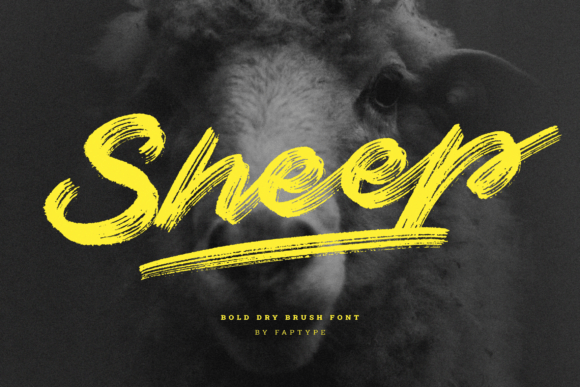
Welcome to the world of Sheep Font, a groundbreaking script typeface that will revolutionize your creative endeavors. Picture this: a font that captures the essence of handwritten artistry, with each letter flowing like a gentle breeze. Inspired by the timeless beauty of dry brush strokes, Sheep Font is an instant classic, ready to add a touch of elegance and sophistication to your projects.
As you explore the depths of Sheep Font, you'll discover a world of possibilities. With its PUA encoding, you'll have effortless access to a treasure trove of glyphs and swashes, allowing you to unleash your creativity and create designs that truly stand out. Let your words dance across the page, each letter carrying the weight of your message with grace and flair.
Sheep Font isn't just another font; it's an experience. It's a journey into the realm of artistic expression, where your imagination roams free and your projects come to life with stunning beauty. Whether you're a seasoned designer seeking inspiration or a novice venturing into the world of typography, Sheep Font is your trusted companion, guiding you to achieve greatness.
Immerse yourself in the captivating charm of Sheep Font. Let its intricate details and sweeping curves take you on a visual adventure. From enchanting logos that captivate audiences to heartfelt invitations that touch souls, Sheep Font is the ultimate choice for creating designs that resonate with your audience.
Don't settle for ordinary fonts that blend into the background. Choose Sheep Font, and let your designs speak volumes. Whether you're crafting a captivating social media post, designing a stunning website, or creating heartfelt branding materials, Sheep Font will elevate your projects to new heights.
Step into the spotlight and let Sheep Font be your guide. Unleash your creativity and let your designs shine with a brilliance that commands attention. With Sheep Font by your side, there are no limits to what you can achieve. Embrace the power of artistic expression and embark on a creative journey like no other.